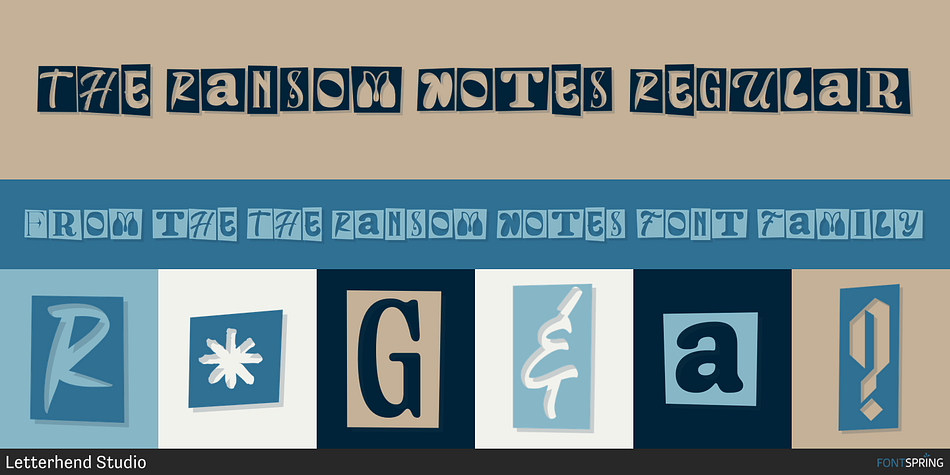
The Ransom Notes Regular
Designed by Hendry Juanda, The Ransom Notes is a display and novelty font family published by Letterhend Studio.
The Ransom Notes is a mixed cut letterform. You can play around to fit the form using uppercase and lowercase mode. This font perfectly made to be applied especially in logo, and the other various formal forms such as invitations, labels, logos, magazines, books, greeting / wedding cards, packaging, fashion, make up, stationery, novels, labels or any type of advertising purpose.
- Number & Punctuation